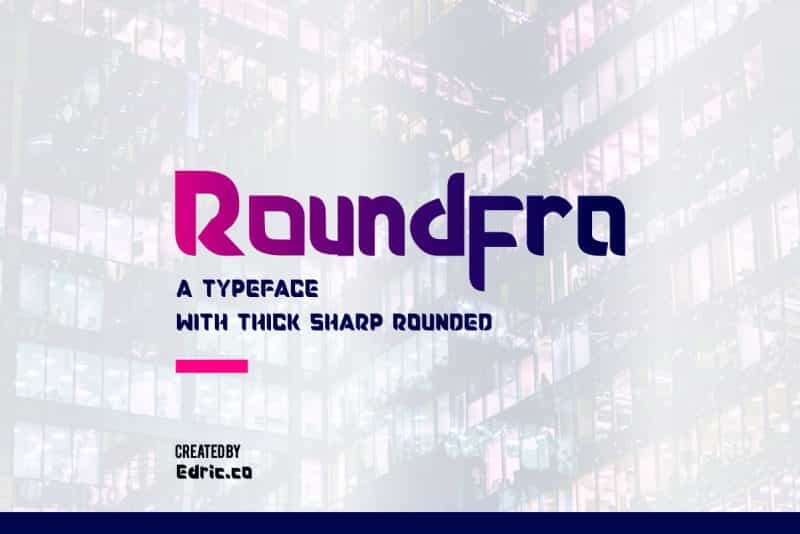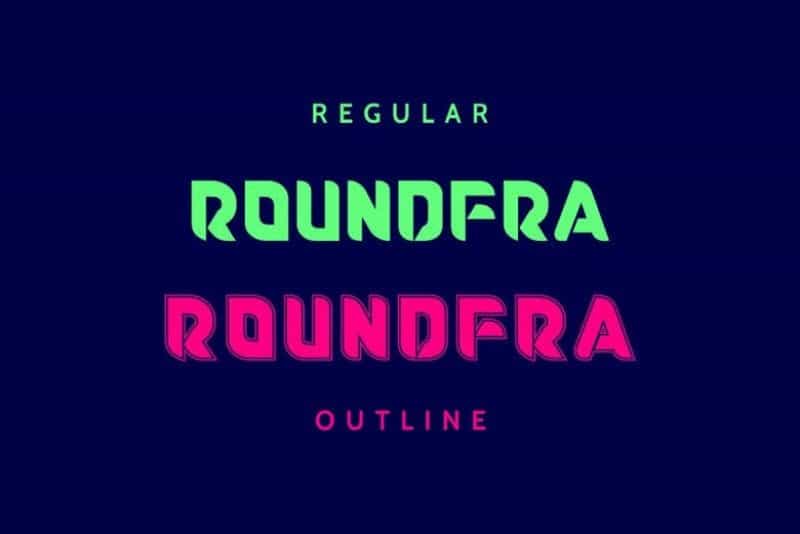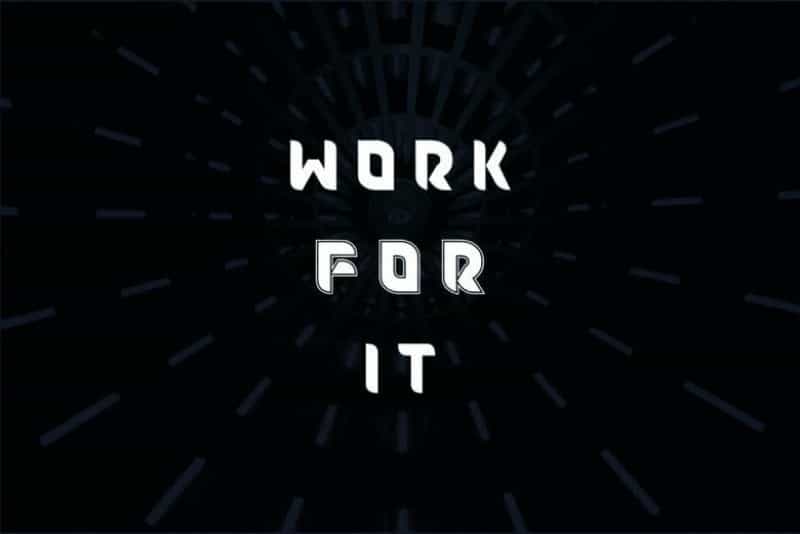
Hi Everybody! Introducing our newest font: Roundfra Font, first made on 2017 and now the font updated and modernised. It’s a modern, sporty, futuristic font with fresh and elegant second and third layers.